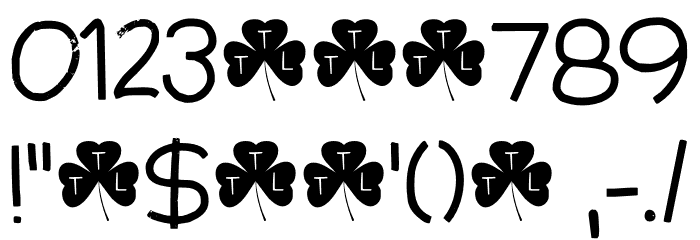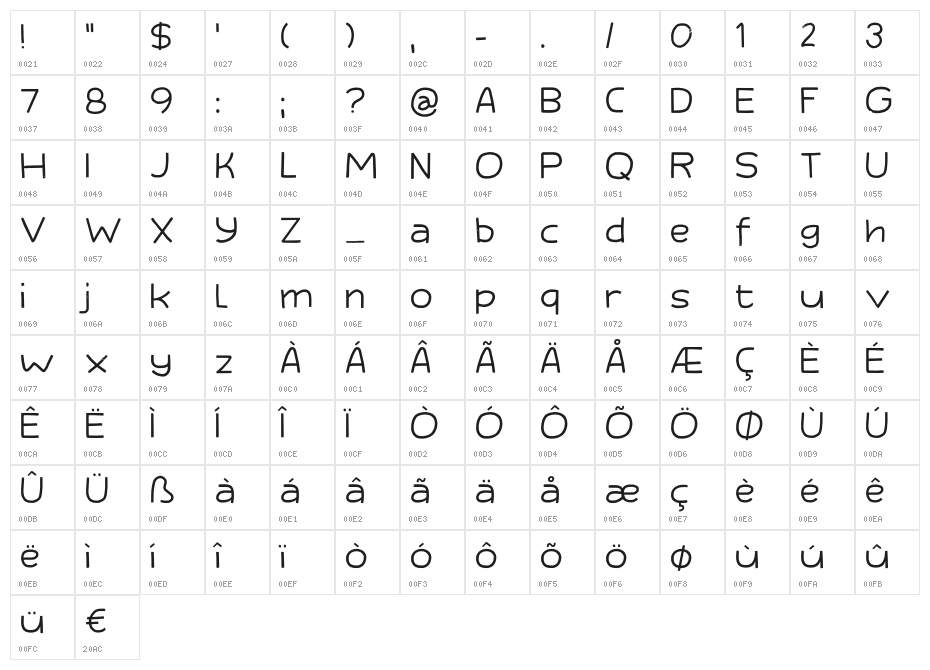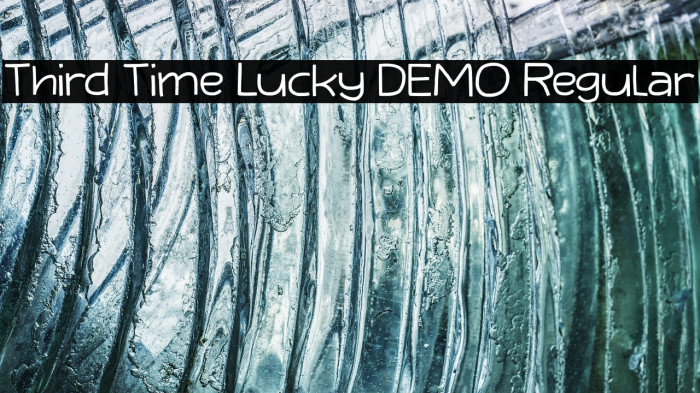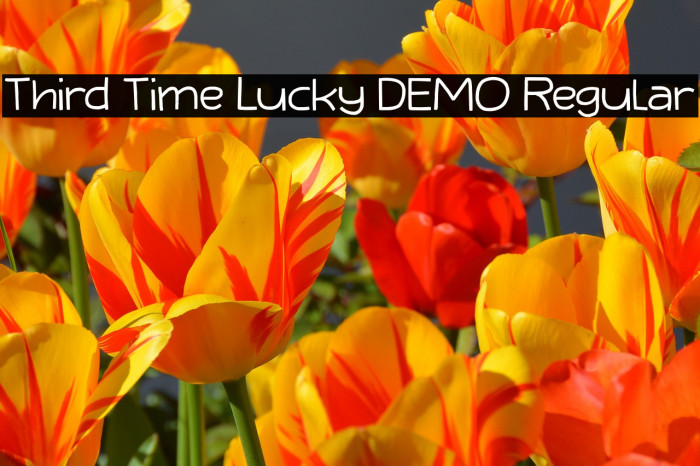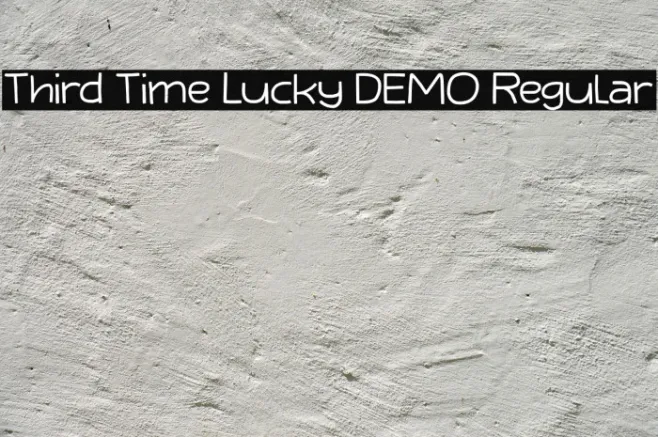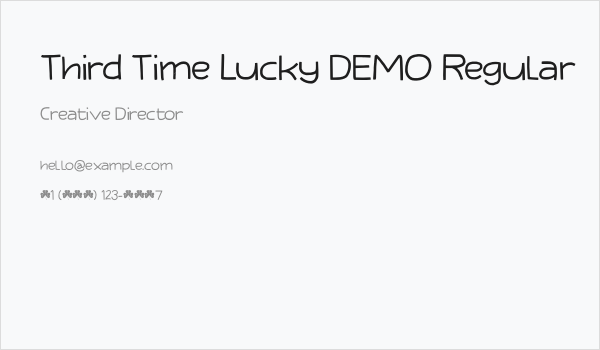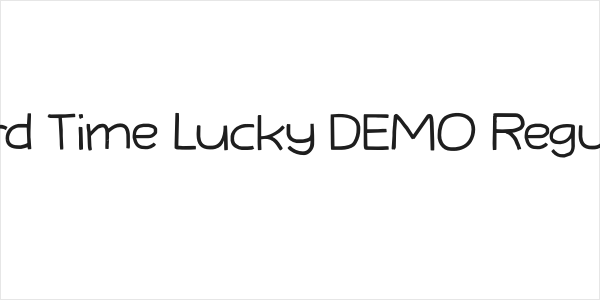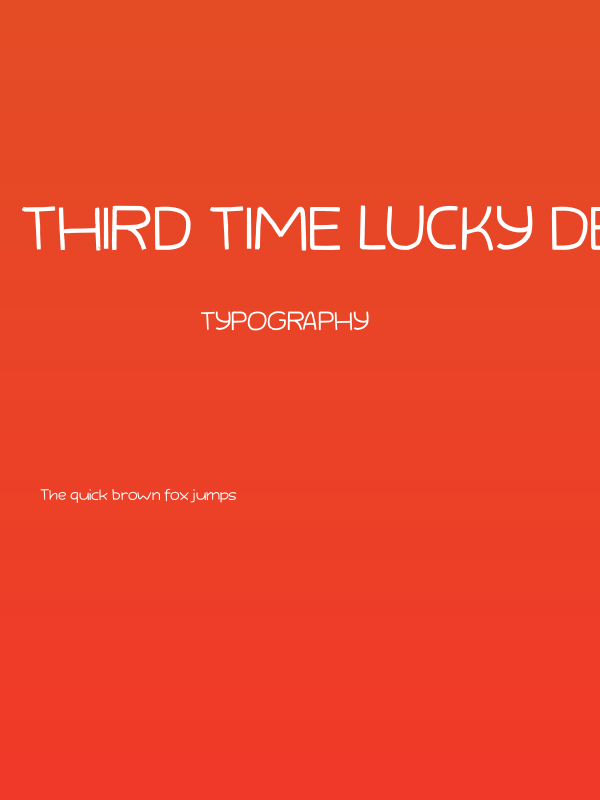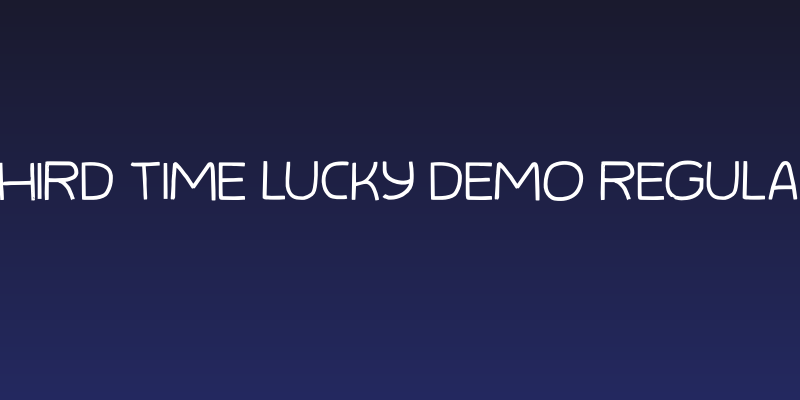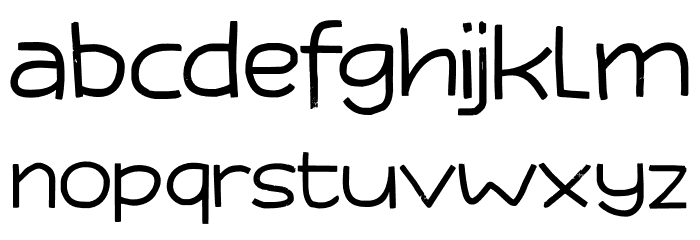
Third Time Lucky DEMO Regular Font
Third Time Lucky DEMO Regular Description
This font features a playful and casual style with a handwritten feel. The characters are slightly irregular, adding a sense of whimsy and charm. The uppercase and lowercase letters maintain a consistent height, creating a harmonious look. The numbers are bold and clear, ensuring readability. Special characters are creatively designed, incorporating a unique clover motif that adds a decorative touch. The overall appearance is friendly and approachable, making it suitable for projects that require a personal or informal tone.